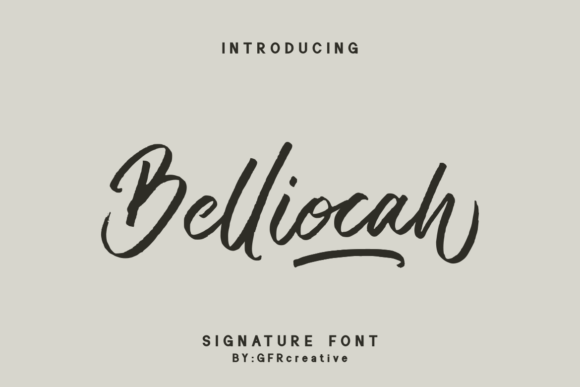
The Perfect Script: Unveiling the Elegance of Belliocah Font
As designers, we’ve all been there – staring at a blank page, waiting for inspiration to strike. The cursor blinks, taunting us with its silence. But then, it happens. A spark of creativity ignites, and suddenly, the words flow. For many of us, this moment is the thrill of the design process. It’s the thrill of bringing an idea to life, of crafting a message that resonates with others.
That’s where the Belliocah Font comes in – a chic, refined script font that elevates any project to new heights. Its stylish alternates and ligatures make it the perfect match for designers seeking sophistication and elegance. With the Belliocah Font, you’ll have the tools to create truly memorable designs that leave a lasting impression.
- Unique Characteristics: Features a unique blend of modern and vintage elements, making it suitable for a wide range of designs
Belliocah Font Review
I recently had the chance to work with the Belliocah font, and overall, I’m impressed. ✨ The font’s unique, hand-drawn feel adds a touch of elegance to any design project. It’s perfect for creating a vintage or whimsical atmosphere, and the subtle imperfections give it a human touch that’s hard to find in more polished fonts.
- ✨ Unique, hand-drawn feel adds character to designs
- ✨ Perfect for creating a vintage or whimsical atmosphere
- ✨ Subtle imperfections give it a human touch
However, there are some limitations:
- ⚠️ May not be suitable for large body text due to its decorative nature
- ⚠️ Limited font sizes and weights may make it difficult to use in certain contexts
Overall, I think the Belliocah font is a great choice for designers looking to add a touch of personality to their work. While it may have some limitations, its unique feel and subtle imperfections make it a great addition to any design project.
Getting the Most Out of Belliocah Font
To get the most out of Belliocah Font, use it in conjunction with other elegant fonts and a clean design aesthetic. This font is perfect for creating invitations, wedding stationery, and other formal documents.
Belliocah Font is commonly used for:
– Formal business documents and presentations
– Elegant packaging and branding
Project Ideas Using Belliocah Font
Create a unique wooden sign featuring the Belliocah Font, perfect for a nursery or children’s room.